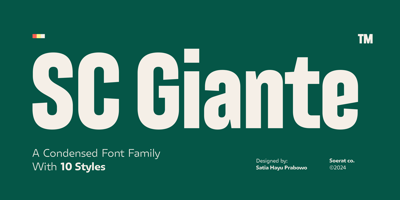
SC Giante
SC Giante font
SC Giante Font Family was designed by Satia Hayu Prabowo and published by Soerat Company. SC Giante contains 10 styles and family package options. SC Giante is a condensed sans serif font family of 10 weights. The characteristics of this font are angled terminal, large x-height and condensed structure. Comes with a modern look, this font perfect for advertising, packaging, logo, editorial and publishing, branding and other creative industries. SC Giante supports around 150+ languages in Latin and Cyrillic script.